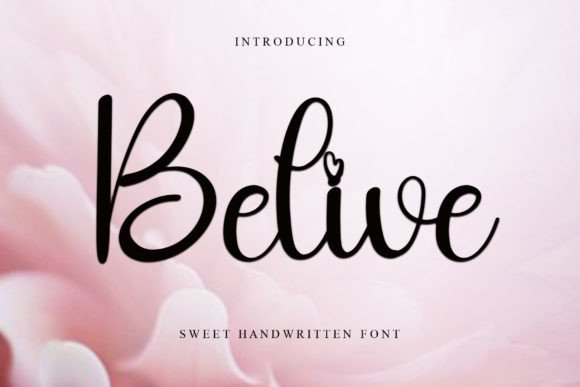
Introducing Belive Font, the ultimate script font that will take your business plan to new heights! Created by PiPi Creative, this font is meticulously designed with an elegant touch, making it the best choice for all your professional projects.
With Belive Font, your designs will instantly stand out from the crowd. Its neat and beautiful handwritten style brings a sense of sophistication and charm to any piece of work. Whether you're creating a logo, website, or presentation, this font will captivate your audience and leave a lasting impression.
One of the most remarkable features of Belive Font is its distinct and timeless appeal. It exudes a sense of elegance and class, making it perfect for businesses looking to make a strong statement. Imagine your business plan adorned with this exquisite font, instantly elevating your brand image and showcasing your professionalism.
But Belive Font is not just about aesthetics; it's also incredibly versatile. Its versatility allows you to use it across various platforms and design styles. From traditional to modern, this font seamlessly adapts to your creative vision, ensuring your message is conveyed flawlessly.
When it comes to attracting customers and clients, words matter. Belive Font understands this and empowers your words to shine. Its legibility ensures that your message is easily readable, while its artistic flair adds a touch of personality. With this font, your content will effortlessly engage and inspire your target audience.
Belive Font is the perfect companion for designers, entrepreneurs, and anyone looking to make a bold statement. Its emotional appeal and creative charm will leave a lasting impact on your customers, compelling them to take action. Whether you're launching a new product or revamping your brand identity, this font will help you achieve your goals with style and finesse.